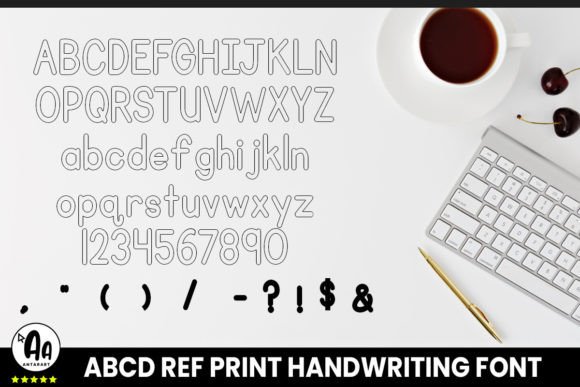
Abcd Ref Outlined Font
ABCD Ref Outlined (ABCD Ref font family)
This efficient outlined display font is based on the D’Nealian Method US school and helps you create thousands of worksheets. It is a great learning resource for those who want to learn or teach the print alphabet enjoyably and interactively.